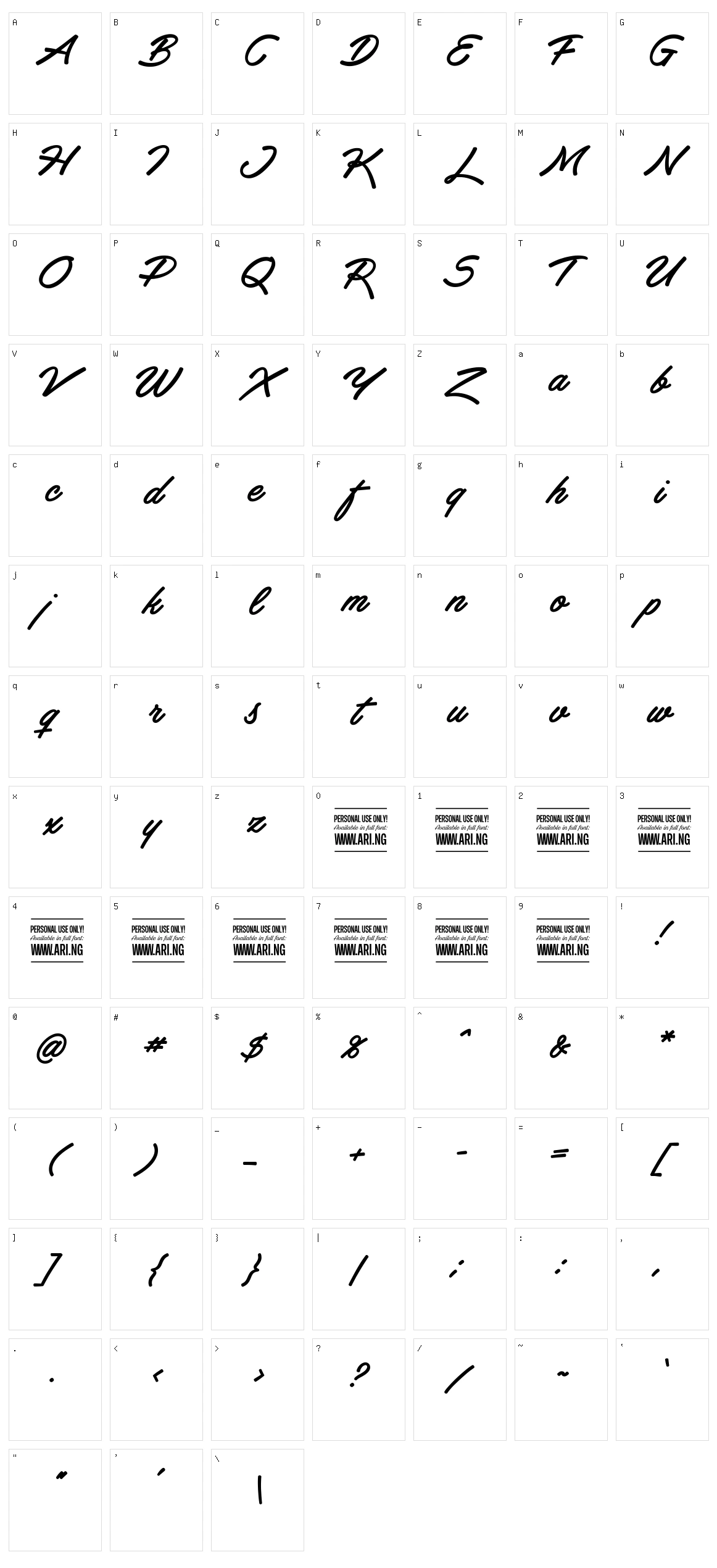
Haydon Brush is a handwritten brush typeface.
It is staunch and confident, the perfect type to use for a diagonal slogan or a logotype.
The font contains ligatures, smaller case contextual and stylitic alternates, as well as a full upper case alternate alphabet.
Designed by Måns Grebäck, it is guaranteed to give your projects the extra character it needs.